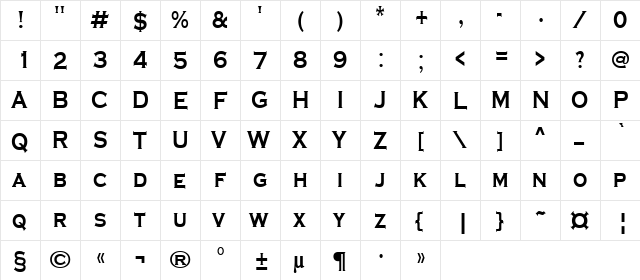
a_CopperGothCaps Bold Font Preview
a_CopperGothCaps Bold
Design Context for a_CopperGothCaps Typeface
a_CopperGothCaps takes a measured approach to typography — its balanced proportions and neutral character make it a reliable workhorse for both digital and print work. Its bold stroke weight gives it real presence on the page.